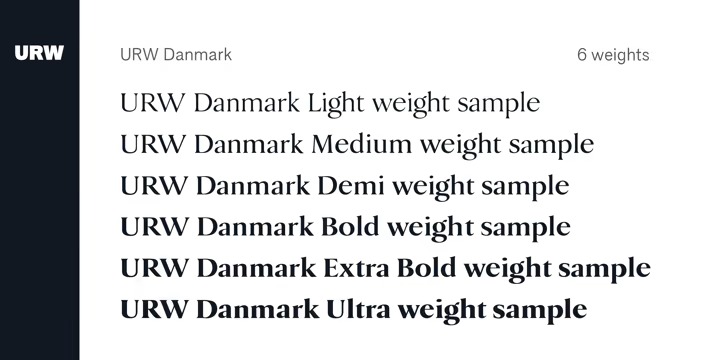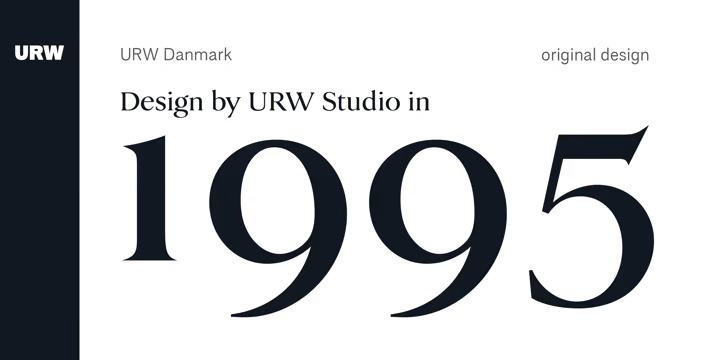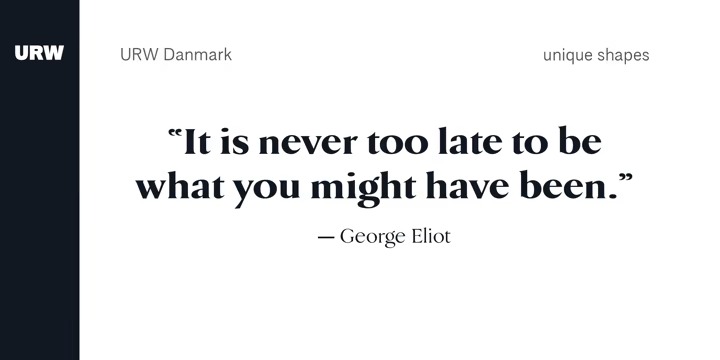
URW Danmark Font Family
URW Danmark Serif Font
This is a serif typeface created by URW Type Foundry with a strong personality, design to add an edge of personality and softness to your designs. The Alamia font family is a perfect choice for body text, branding design, web design, editorial design and more.